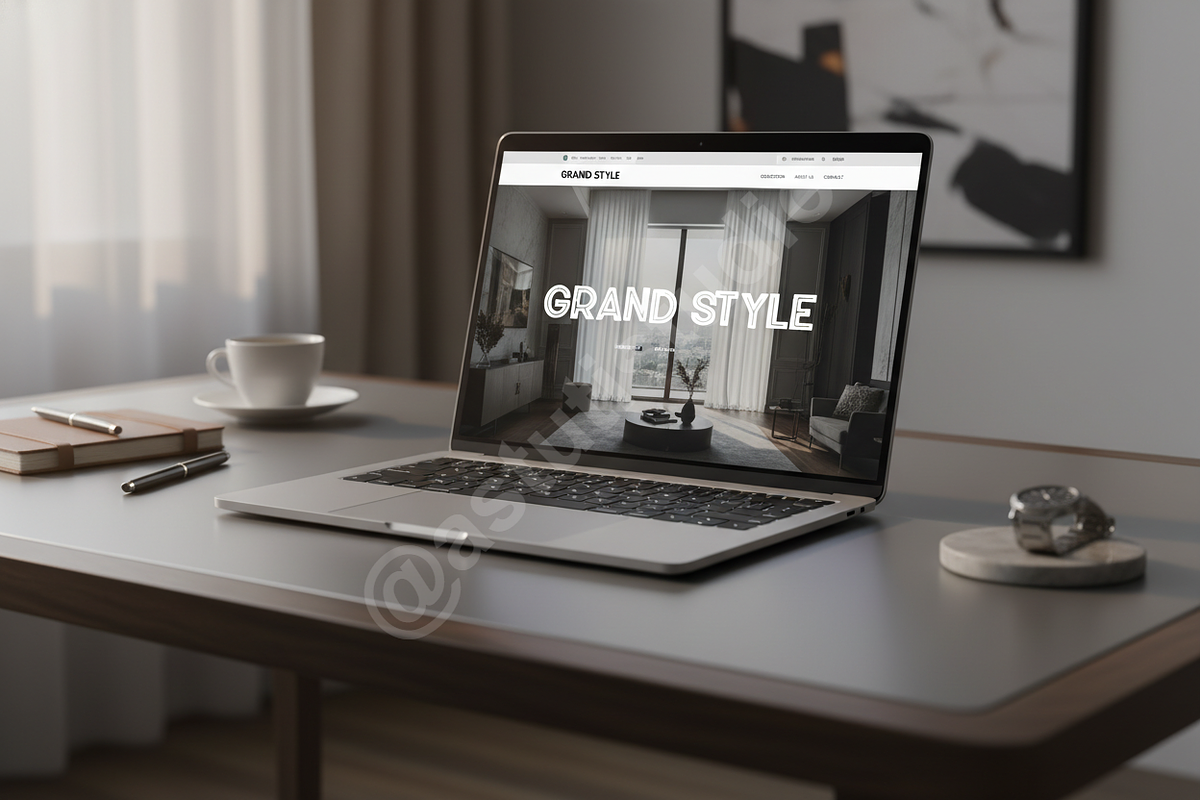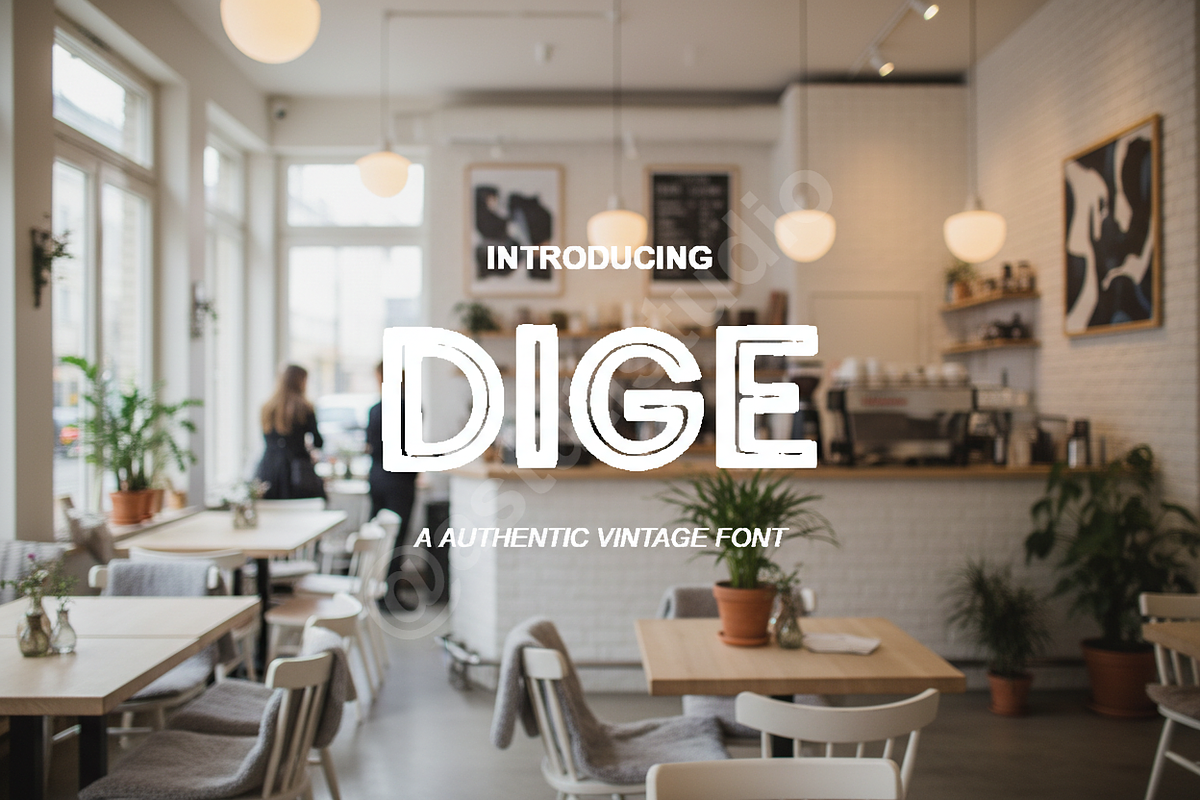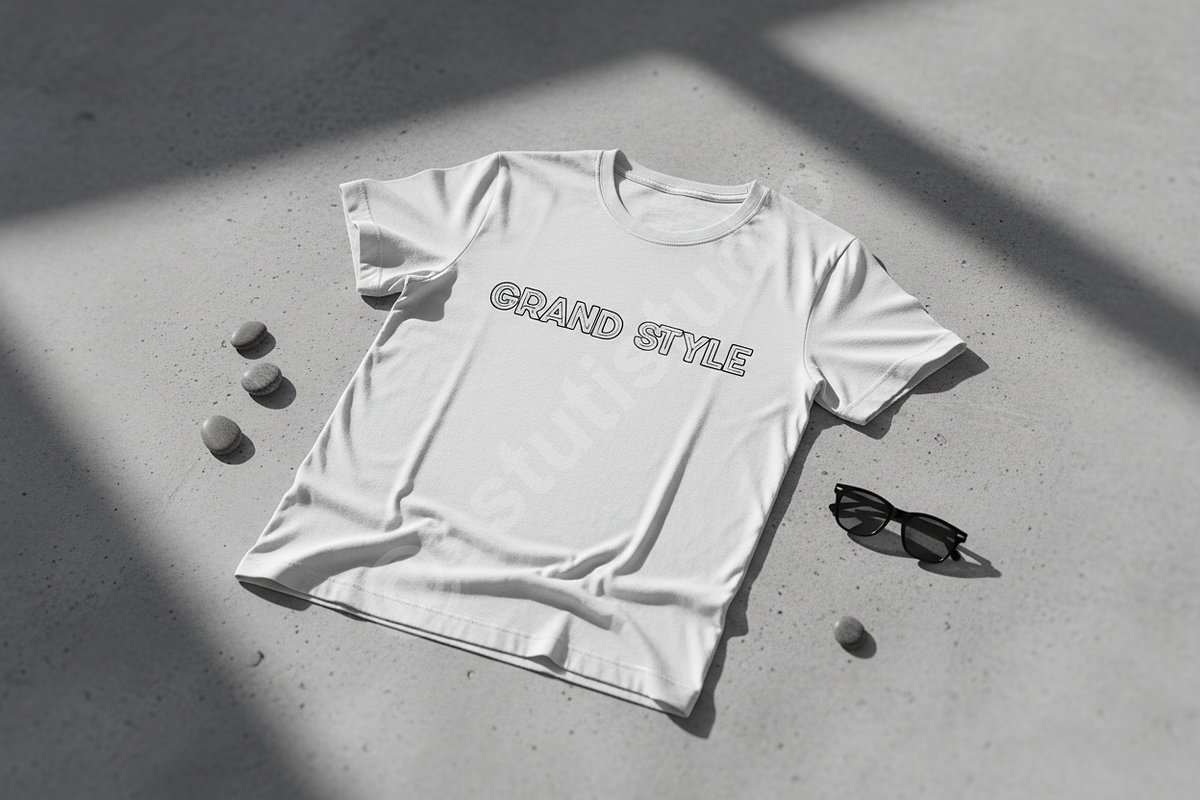
Dige – Modern Luxury Serif Font
Dige is an exquisitely crafted modern serif font, embodying timeless elegance and sophisticated luxury. Designed with meticulous attention to detail, Dige offers a harmonious blend of classic proportions and contemporary flair, making it an ideal choice for projects demanding a touch of prestige. Its refined aesthetic is perfect for elevating luxury branding, creating captivating editorial designs, and producing high-impact social media visuals that resonate with discerning audiences.
Key Features: • Elegant Ligatures & Alternates: Enhance your typography with a rich set of stylistic ligatures and alternate characters, offering unparalleled creative flexibility and a bespoke feel. • Extensive Multilingual Support: Reach a global audience with comprehensive character sets covering a wide range of languages. • Optimized Kerning: Meticulously kerned for flawless readability and stunning visual balance across all applications. • Versatile Application: From high-end fashion branding and editorial layouts to sophisticated packaging and digital campaigns, Dige adapts beautifully to various design needs.